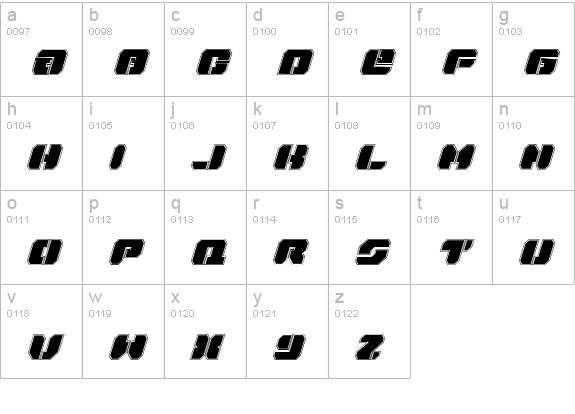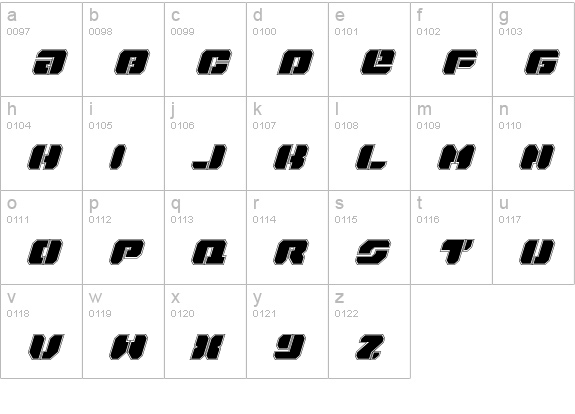
Dan Stargate Pro Italic is a distinctive, italic variant in the Dan typeface family \xE2\x80\x94 well suited to design and typography projects.
Dan Stargate Pro Italic is a stunning and elegant font that exudes a sense of modern sophistication. Its sleek lines and stylish curves make it perfect for adding a touch of luxury to any design project. Whether you're working on a branding project, website design, or any other creative endeavor, this font is sure to elevate your work to the next level. What makes Dan Stargate Pro Italic even more appealing is the fact that it is available for free download at FontsMarket.com. This means that you can easily access and use this beautiful font without any cost involved, making it a valuable addition to your font collection. Don't miss out on the opportunity to enhance your designs with the exquisite Dan Stargate Pro Italic font - download it for free today!